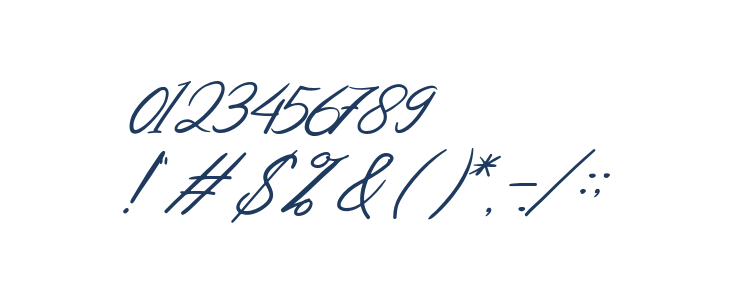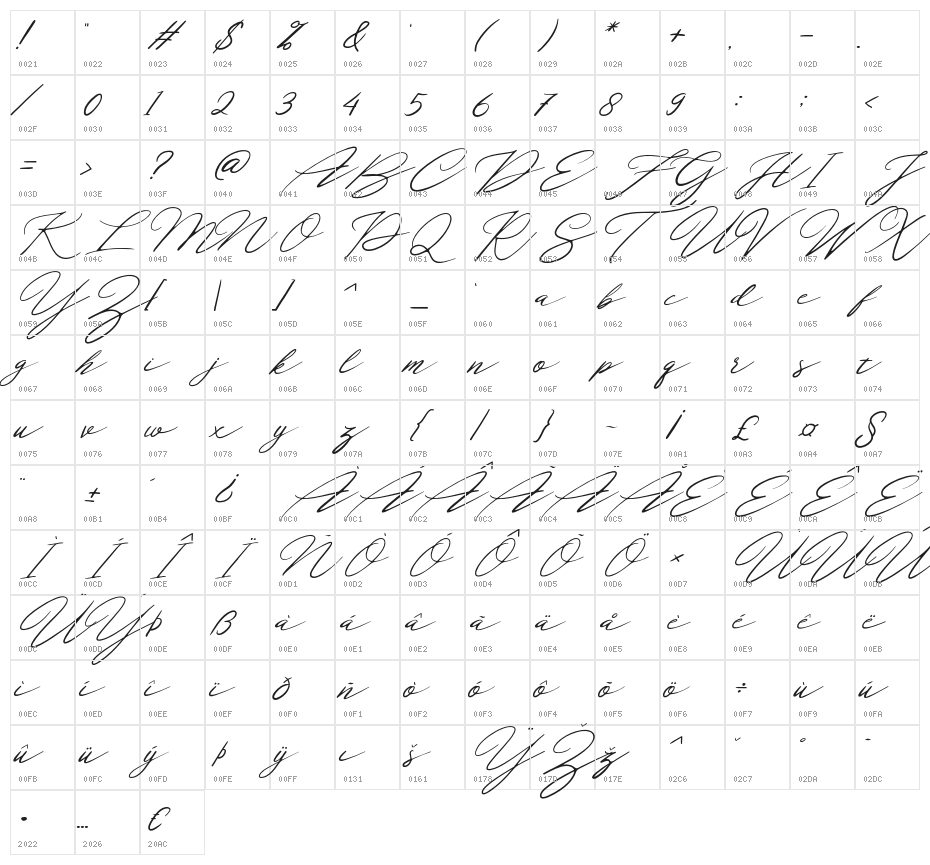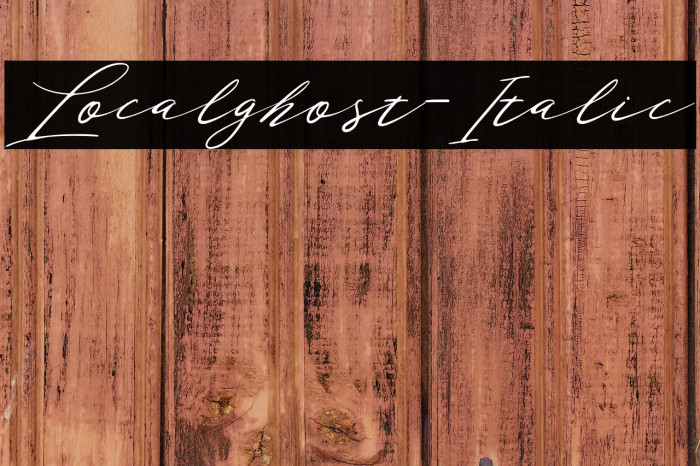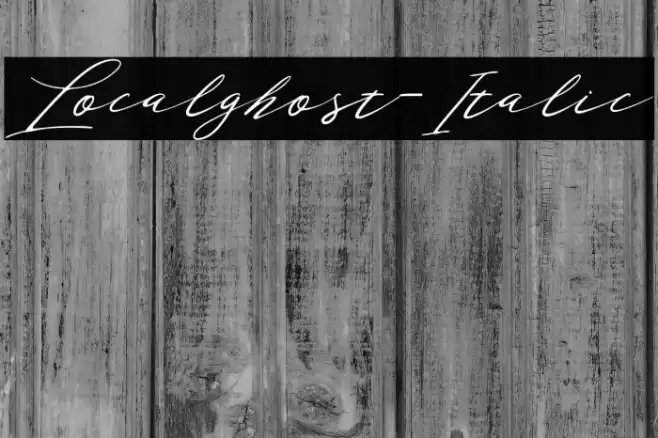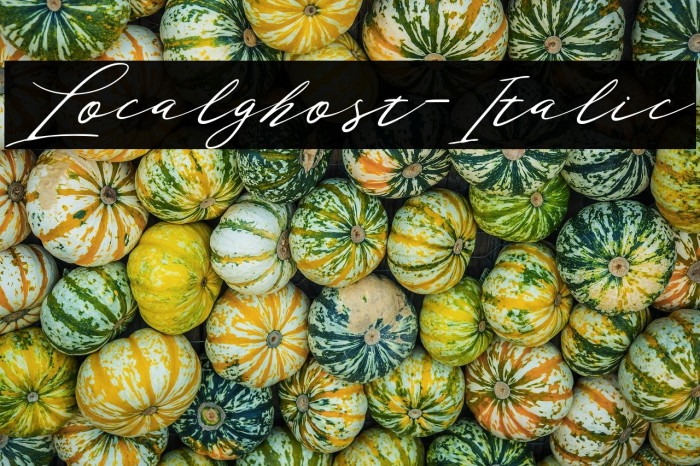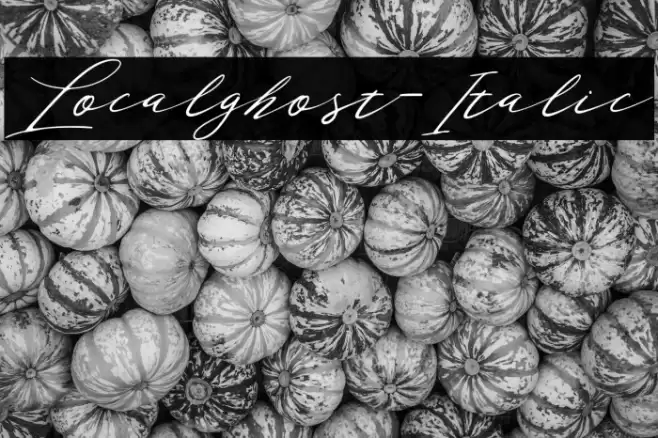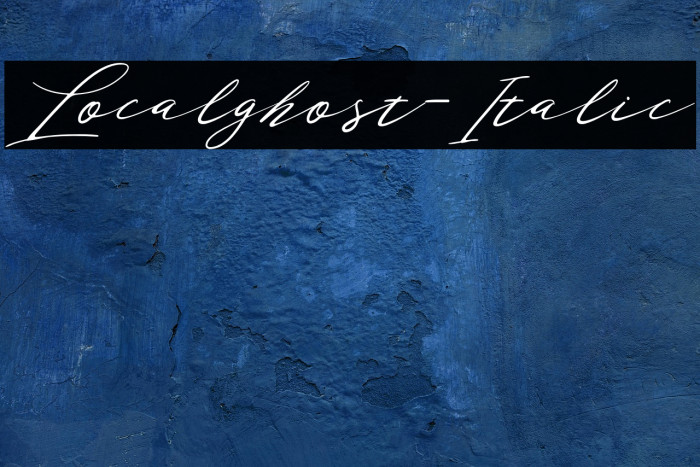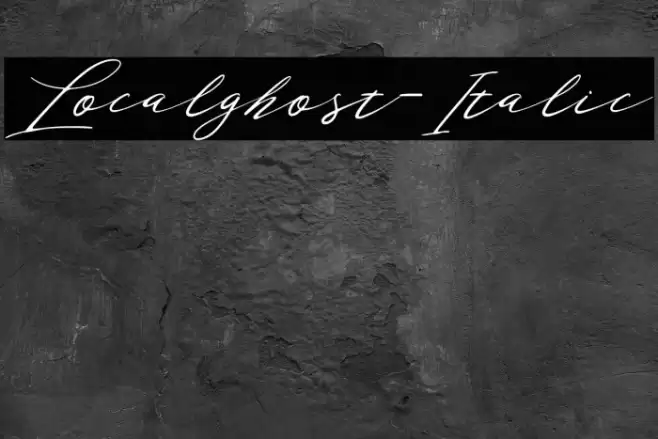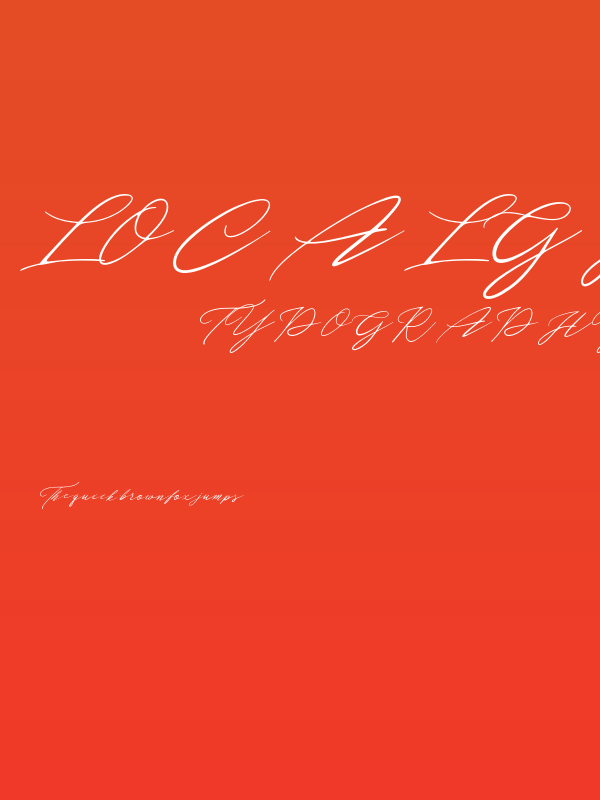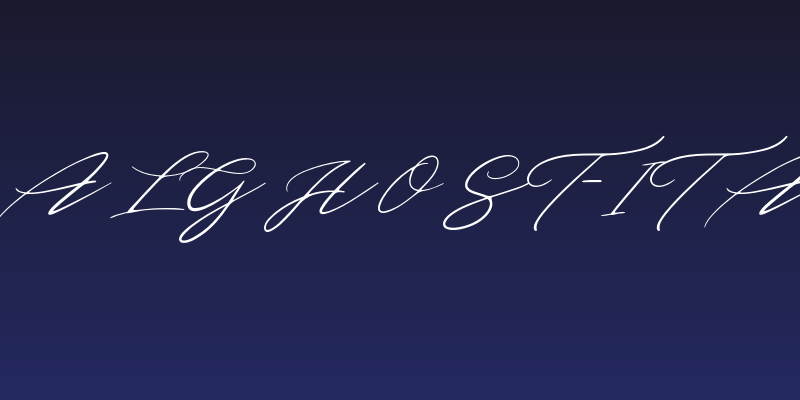
Localghost-Italic Font
Localghost-Italic Description
This font exudes a sophisticated and elegant script style, characterized by its flowing, cursive letterforms. The uppercase letters are gracefully elongated, with smooth curves and delicate connections between strokes, creating a sense of fluidity and motion. The lowercase letters maintain a consistent slant, enhancing the italicized appearance, while the numerals are bold and slightly more upright, offering a clear contrast. Special characters are seamlessly integrated, maintaining the overall aesthetic. The font's design is both classic and modern, making it versatile for various applications.
| Overall Style | Elegant, Classic |
| Proposed Projects | Ideal for wedding invitations, elegant branding, personal stationery, and high-end product packaging. |